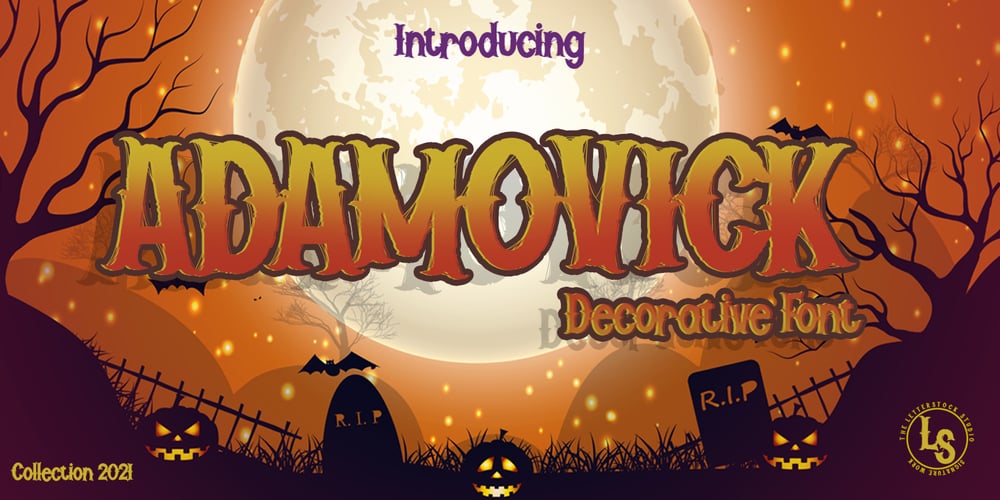
Adamovick Font Family was designed by Studio LetterStock and published by LetterStock. Adamovick contains 1 styles and family package options. **Adamovick Font** This pair was inspired by scary HALLOWEEN poster design that i saw on some HALLOWEEN event, It was crafted by hand specially to add natural handmade feeling in its brand identity than i make it clean with pentool. **Opentype features**Adamovick font has 201 character set included Adamovick Font is very good looking in logo, labels, product packaging, HALLOWEEN invitations, advertising and others. This fonts works with folowing languages: Afrikaans, Albanian, Asu, Basque, Bemba, Bena, Chiga, Cornish, Danish, English, Estonian, Filipino, Finnish, French, Friulian, Galician, German, Gusii, Indonesian, Irish, Italian, Kabuverdianu, Kalenjin, Kinyarwanda, Low German, Luo, Luxembourgish, Luyia, Machame, Makhuwa-Meetto, Makonde, Malagasy, Malay, Manx, Morisyen, North Ndebele, Norwegian Bokmål, Norwegian Nynorsk, Nyankole, Oromo, Portuguese, Romansh, Rombo, Rundi, Rwa, Samburu, Sango, Sangu, Scottish Gaelic, Sena, Shambala, Shona, Soga, Somali, Spanish, Swahili, Swedish, Swiss German, Taita, Teso, Vunjo, Zulu Thank you for using this font.LS